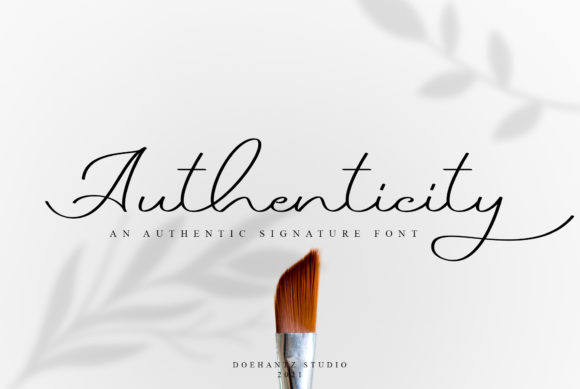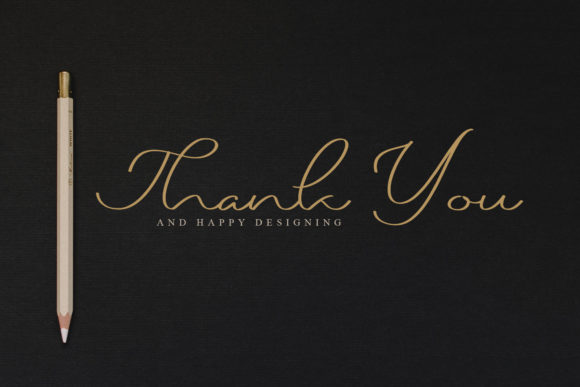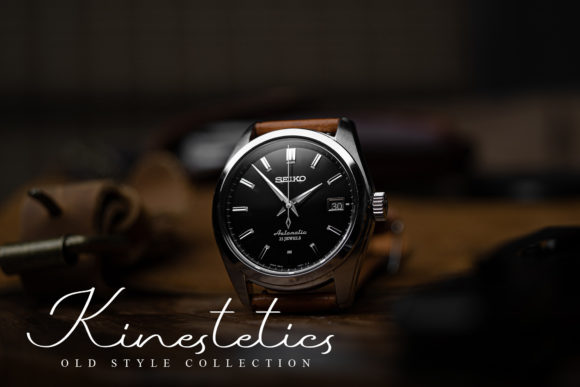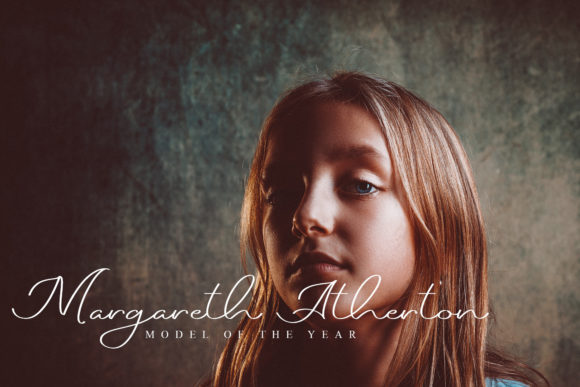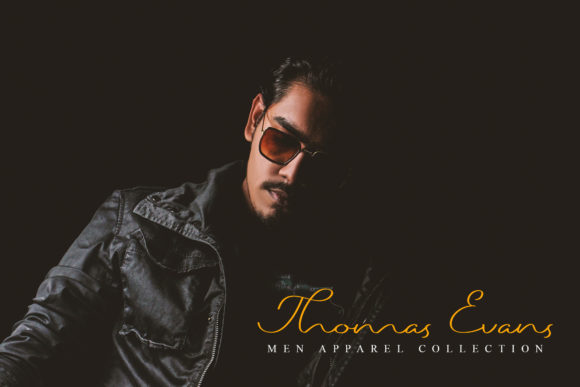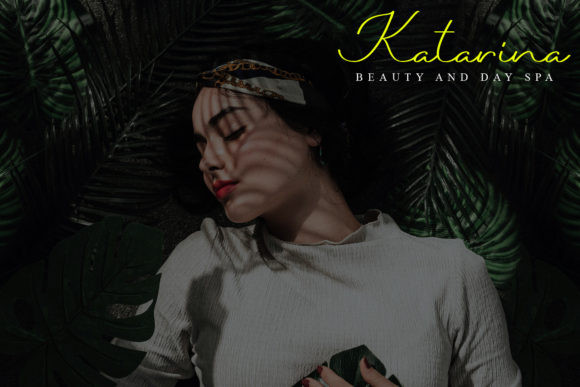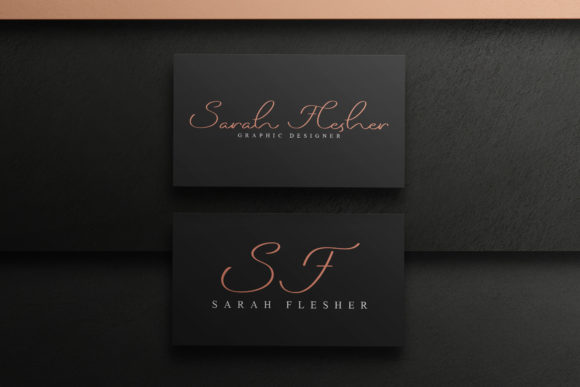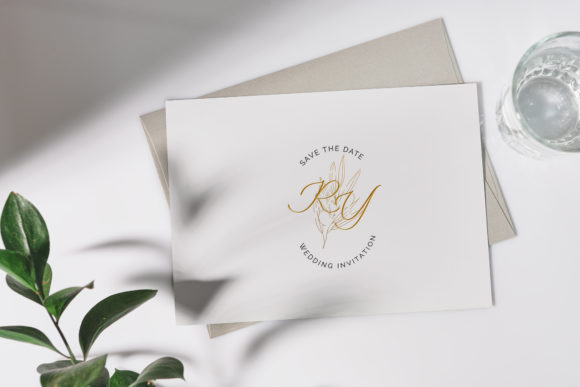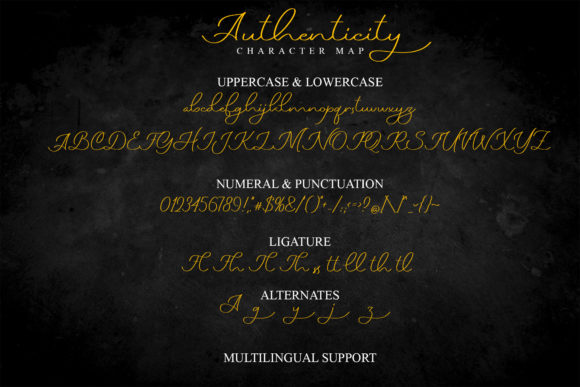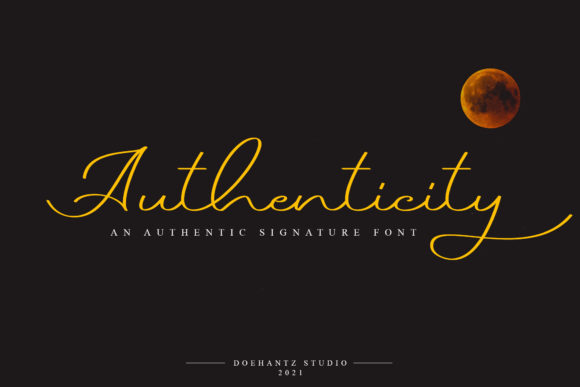
Authenticity Font
About Authenticity Font
Authenticity is an elegant script font with a contemporary atmosphere and impeccable form, inspired by timeless classic calligraphy. Thin lettered, balanced and varied, this font was designed to enhance the beauty of your projects.